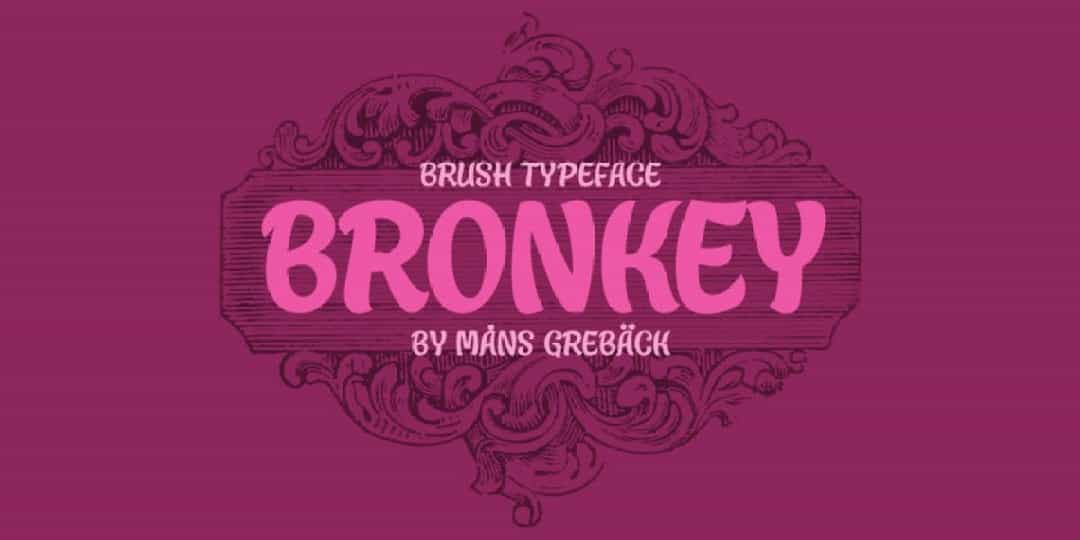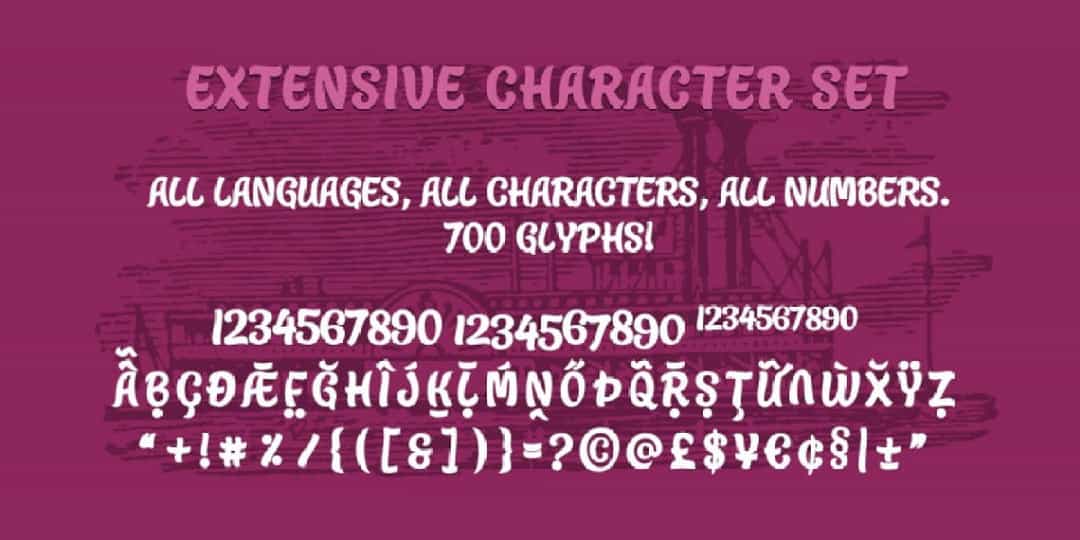
Bronkey is an enjoyable brush-type font with positive letterforms and vibrant movements, designed and developed by Mans Greback in 2022. The Bronkey family consists of 3 styles: Thin Regular Bold; each designed to complement one another for optimal design possibilities.